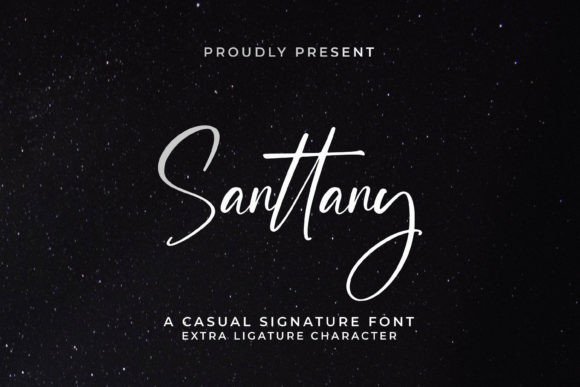
Introducing Santtany Font, the ultimate script font that will take your designs to the next level! Created by integritypestudio, this casual signature font is the perfect blend of elegance and playfulness. With its unique and charming handwritten style, Santtany Font is guaranteed to leave a lasting impression on anyone who sees it.
Are you looking to elevate your brand's image? Santtany Font is the answer. Its graceful curves and smooth lines add a touch of sophistication to logos and branding projects. Whether you're designing for a high-end fashion label or a trendy coffee shop, this font will capture the essence of your brand effortlessly.
But Santtany Font isn't just for logos. Its versatility shines through in a wide range of design projects. Create stunning homeware designs that will make your products stand out on the shelves. From product packaging to mugs, this font will add a touch of elegance to every detail.
Looking to inspire with quotes or captivate with posters? Santtany Font is the perfect choice. Its organic flow and natural beauty will bring your words to life, making a powerful impact on anyone who reads them. Let your creativity soar as you design shopping bags, t-shirts, and book covers that are bound to turn heads.
But the possibilities don't stop there. Santtany Font is also perfect for personal use. Create memorable name cards and invitation cards that reflect your unique style. Send heartfelt greeting cards that will leave a lasting impression on your loved ones. Add a touch of professionalism to your labels and photography with this one-of-a-kind font.
Planning a special event? Santtany Font will make it even more memorable. From wedding invitations to party decorations, this font will set the perfect tone for your celebrations. Its elegant strokes and graceful curves will create an atmosphere of enchantment and beauty.
Don't settle for ordinary fonts when you can have Santtany Font. This font is not only visually captivating, but it also offers a wide range of practical applications. Its versatility and charm make it the best font for price signs, ensuring that your customers will be drawn to your offers like never before.